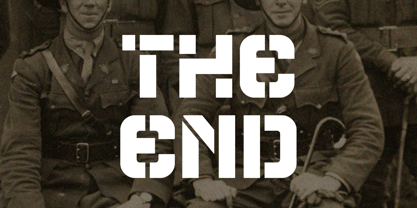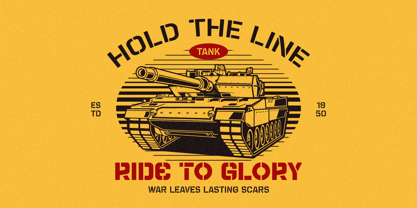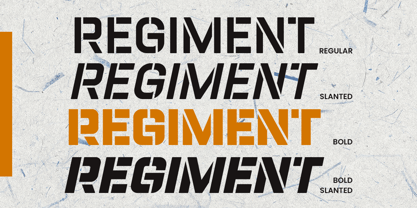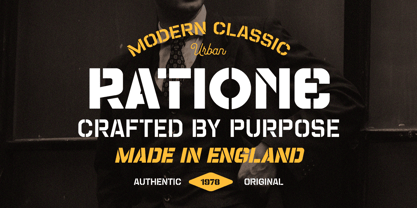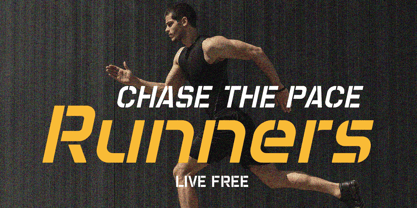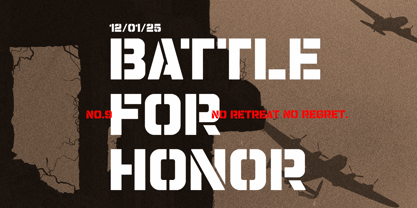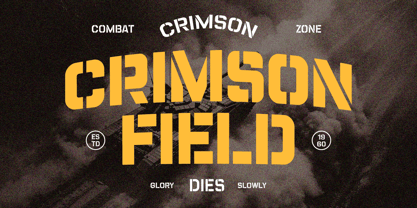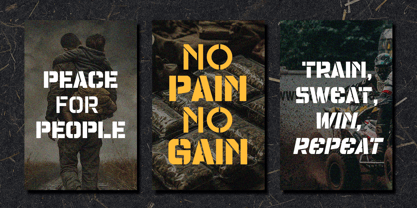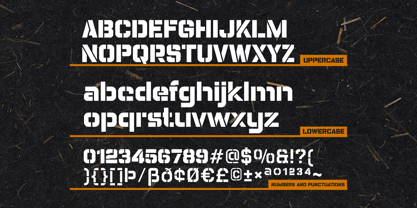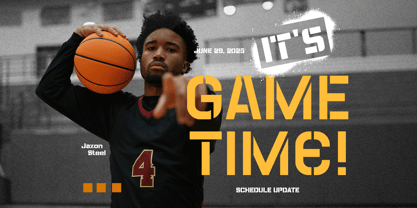
Champions Stencil
by Arterfak Project
The Champions Stencil Font Family was designed by Ahmad Ramzi Fahruddin and published by Arterfak Project. Champions Stencil contains 4 styles and family package options.
Champions Stencil is a bold modern stencil font with distinctive intersecting cuts—blending sporty energy with military precision. Its geometric construction offers a clean and structured look while still standing out with confident, rugged charm.
This font comes in 2 weights plus matching slanted styles, giving you versatile options to express both strength and speed in your designs.
Perfect for logos, gaming, posters, stickers, emblems, jerseys, badges, branding, and bold typographic statements.